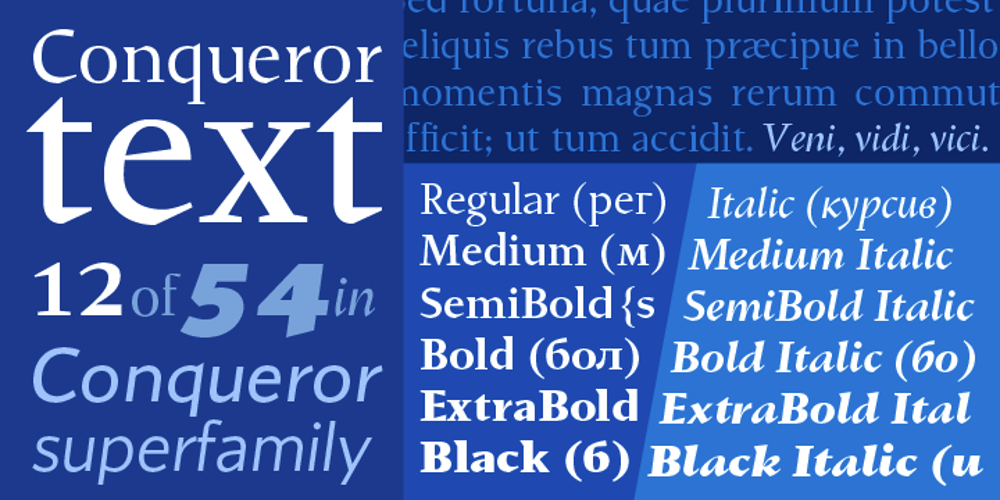
Conqueror Text Font Family was designed by Yuri Gordon and published by Letterhead Studio-YG. Conqueror Text contains 12 styles and family package options. Conqueror Text consists of 12 faces and is a part of a super family Conqueror. It is intended for big text blocks. Someone considers that the Conqueror Text — not so text font, because it too bright and unusual. But others, more courageous, use ConText and are quite happy.